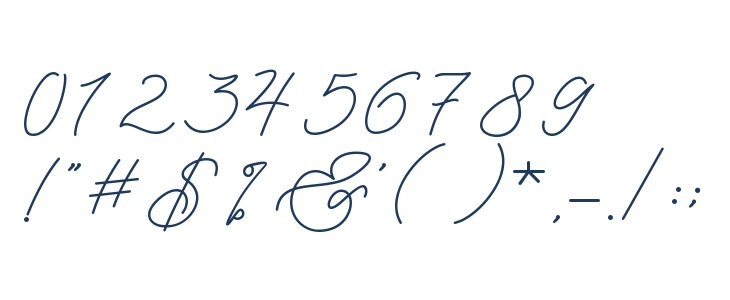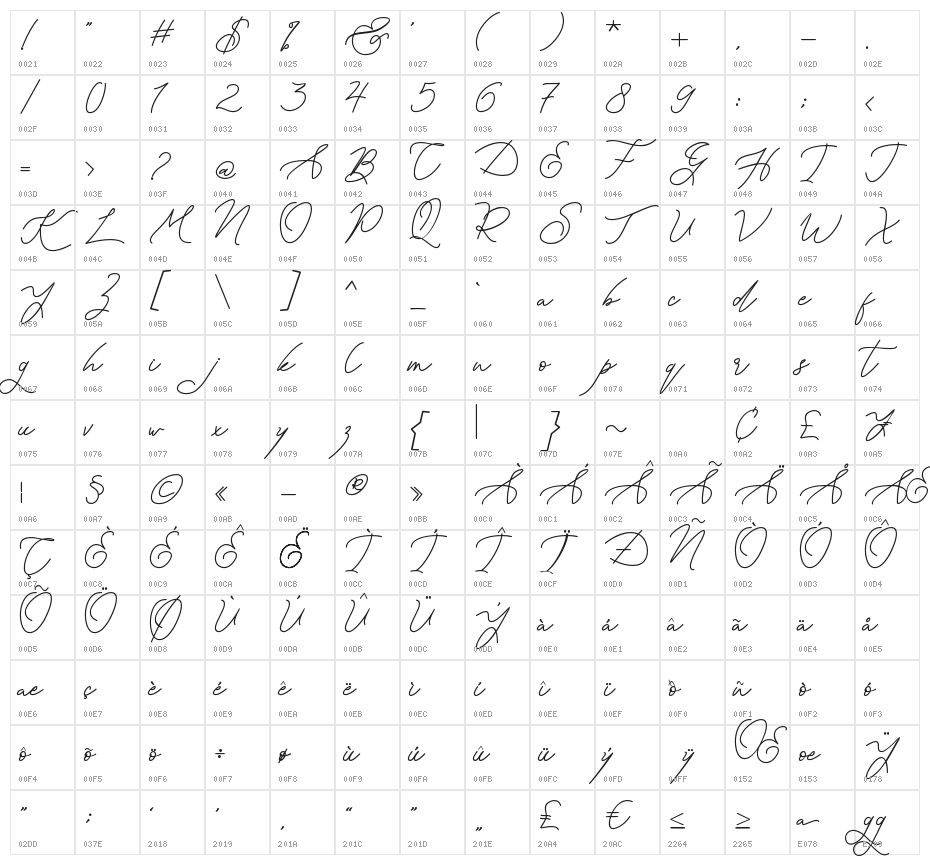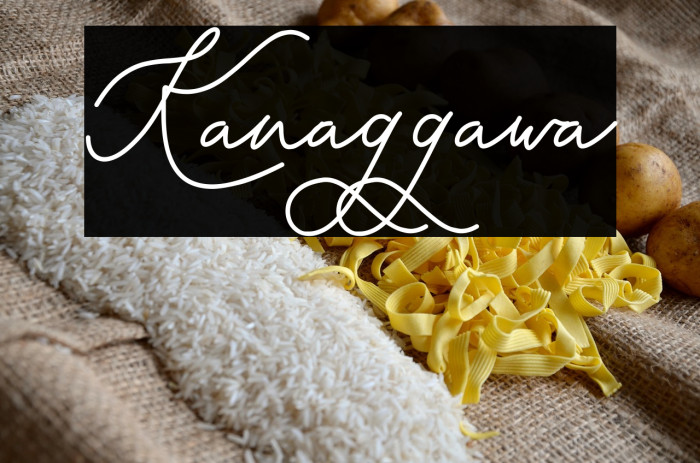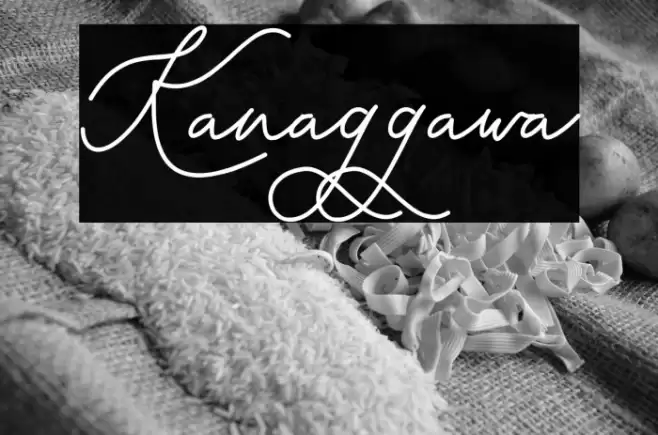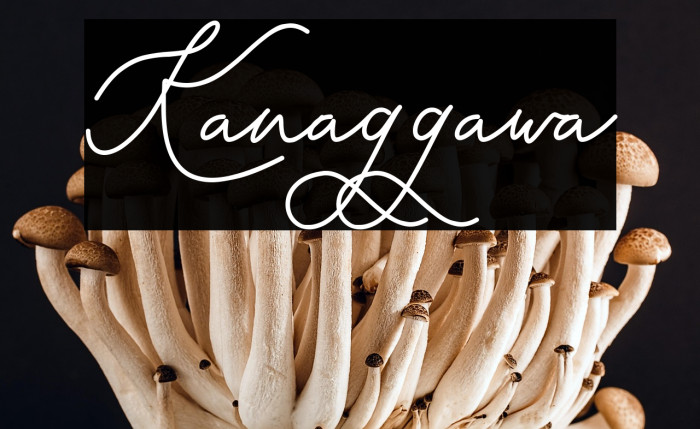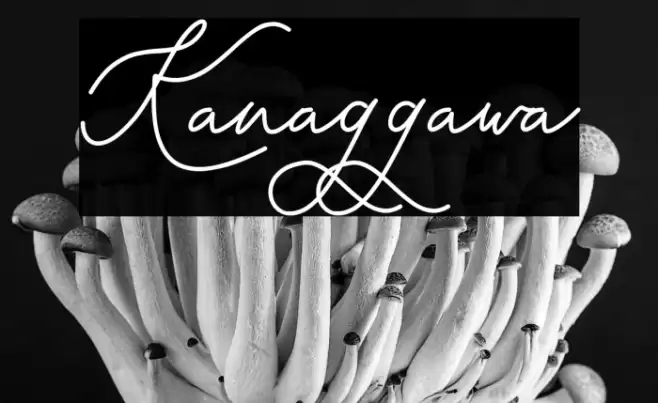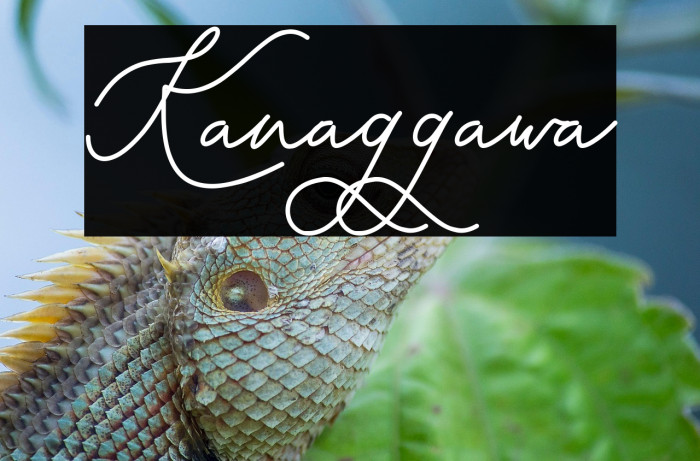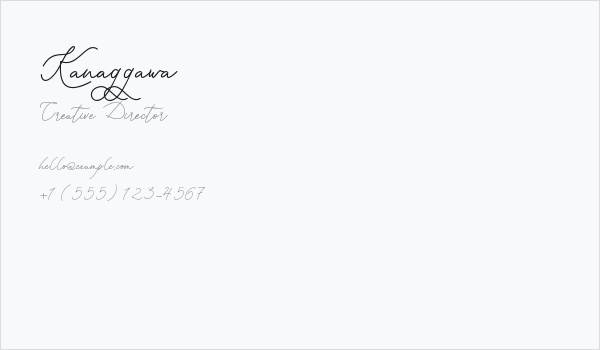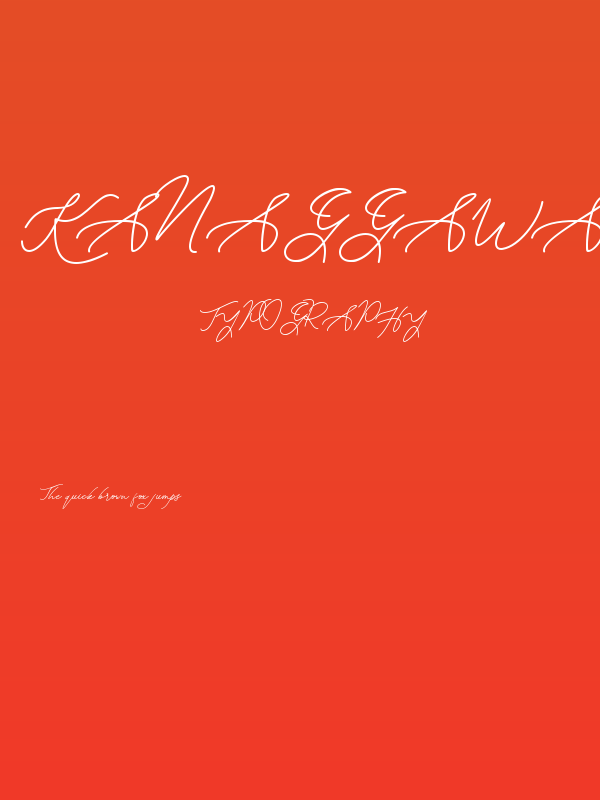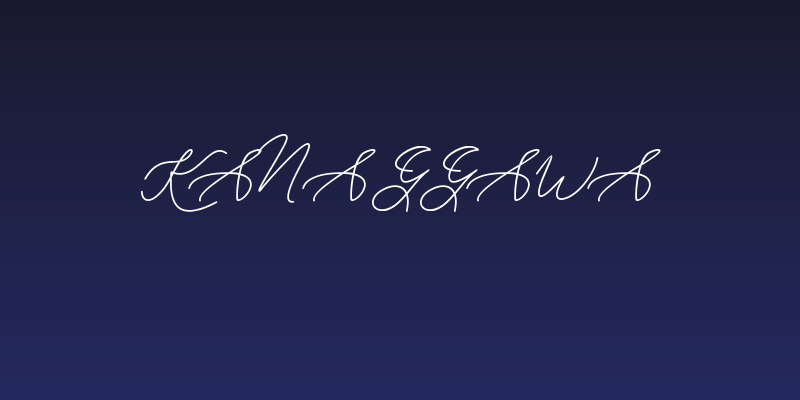
Kanaggawa Font
Kanaggawa Description
This font features a flowing, cursive style that exudes elegance and sophistication. The characters are connected with smooth, sweeping lines, giving it a handwritten appearance. The uppercase letters are slightly more ornate, with flourishes that add a touch of flair, while the lowercase letters maintain a consistent, fluid form. The numerals and special characters are designed to match the overall aesthetic, ensuring a cohesive look across all text. This font is ideal for projects that require a personal, artistic touch, such as invitations, greeting cards, or branding materials.
| Proposed Projects | Ideal for wedding invitations, personal branding, greeting cards, and artistic projects. |